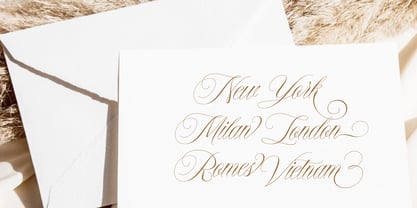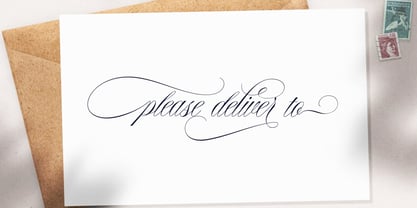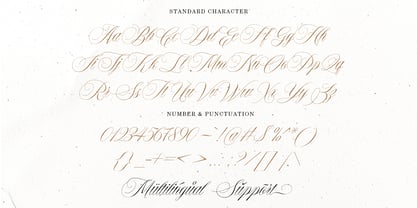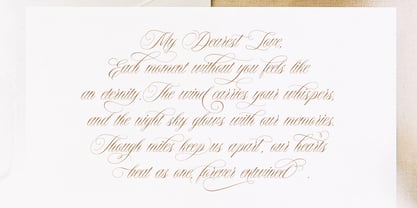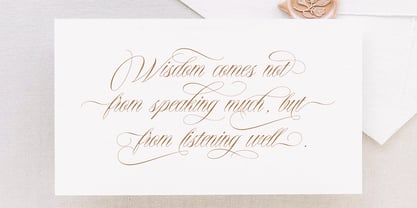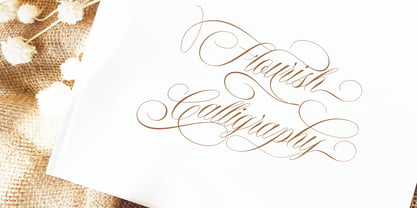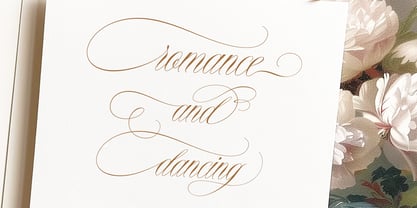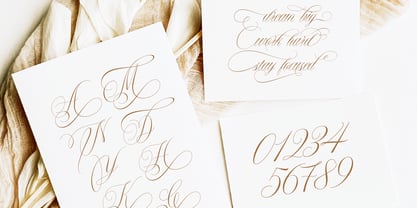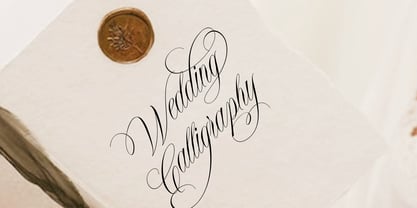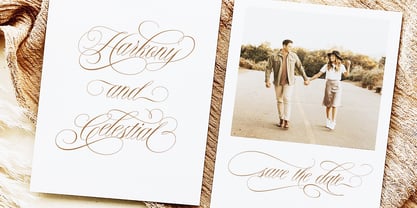
Ms Thalassa
by Right Type
The Ms Thalassa Font Family was designed by Sudir Man and published by Right Type. Ms Thalassa contains 1 styles. More about this family
Ms Thalassa is a classic and elegant font that will bring a unique style and trendy look to your designs.
Meet the new modern calligraphy font - Ms Thalassa This beautiful font is for those who want elegance and style for their designs and is perfect for wedding invitations, greeting cards, and feminine branding.
Ms Thalassa includes a complete set of Basic Uppercase and Lowercase Characters, Numbers, and Punctuation. The book also contains ligatures and many alternates with 1032 styles to perfectly recreate natural calligraphy (check the preview to see them all).
- Multilingual Support | Custom Ligatures
Designers: Sudir Man
Foundry: Right Type